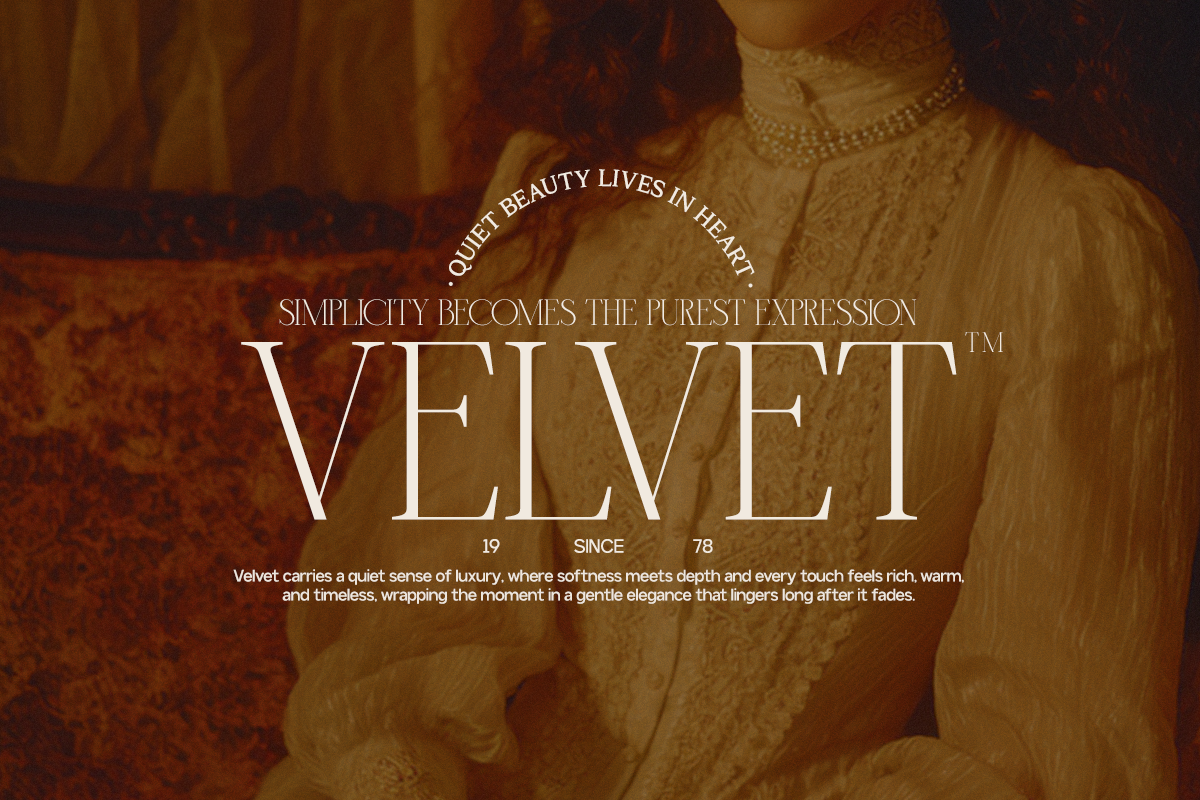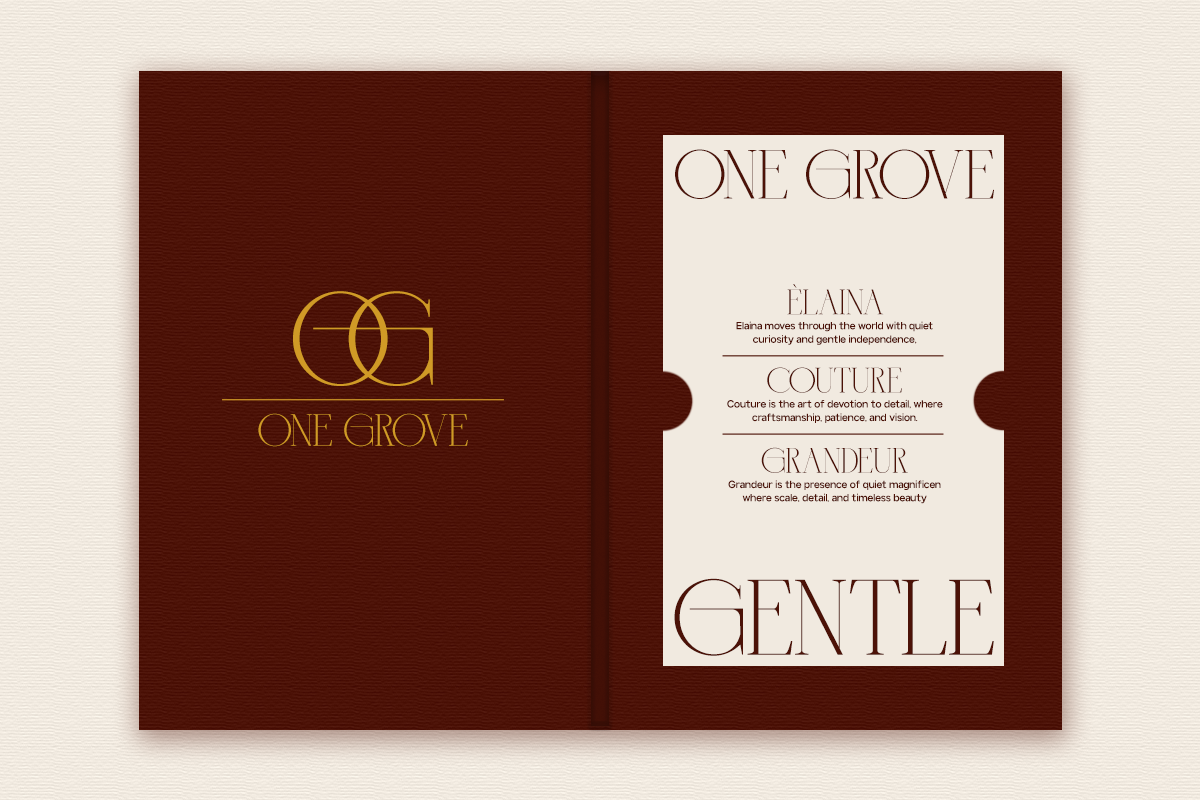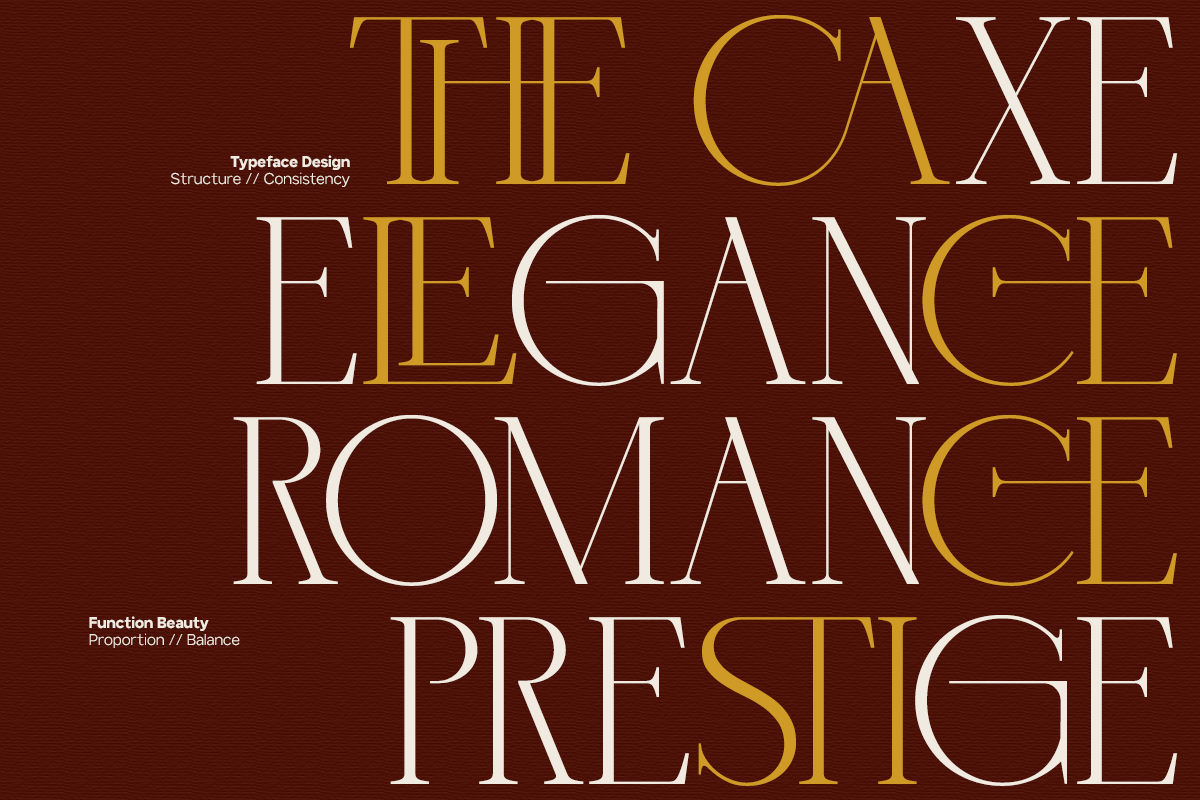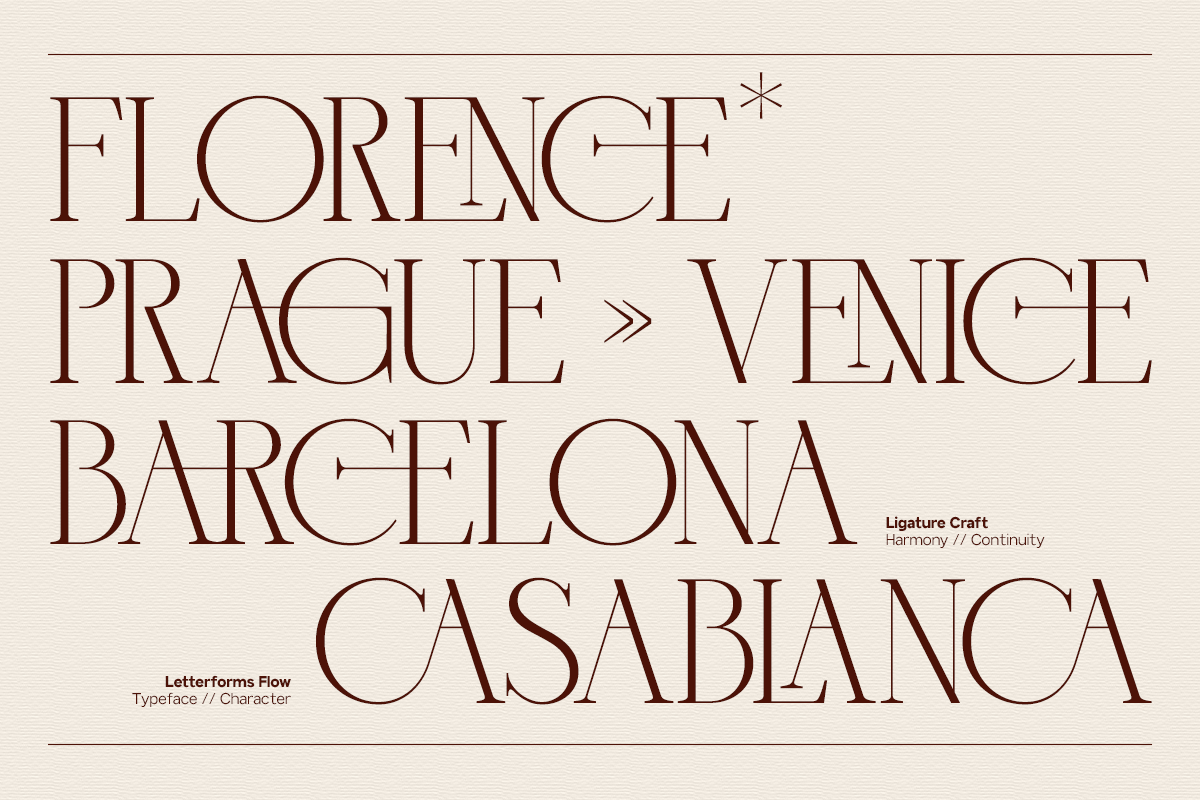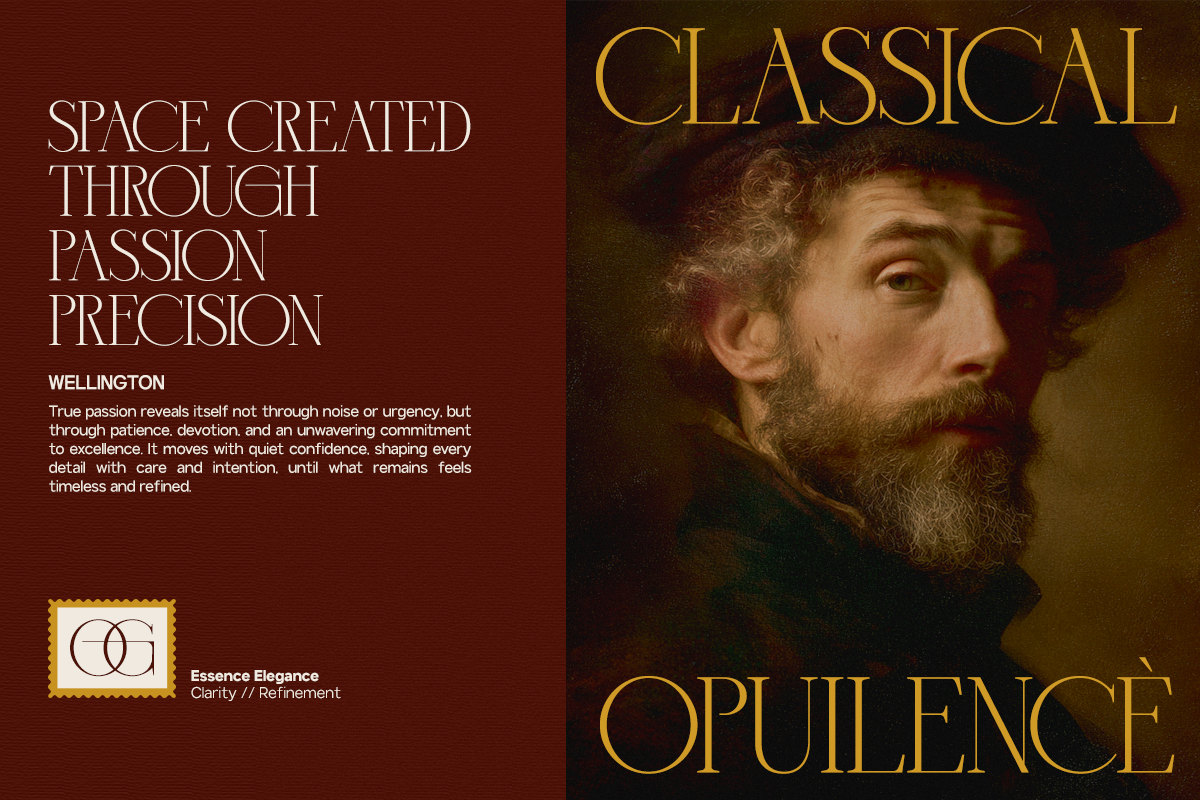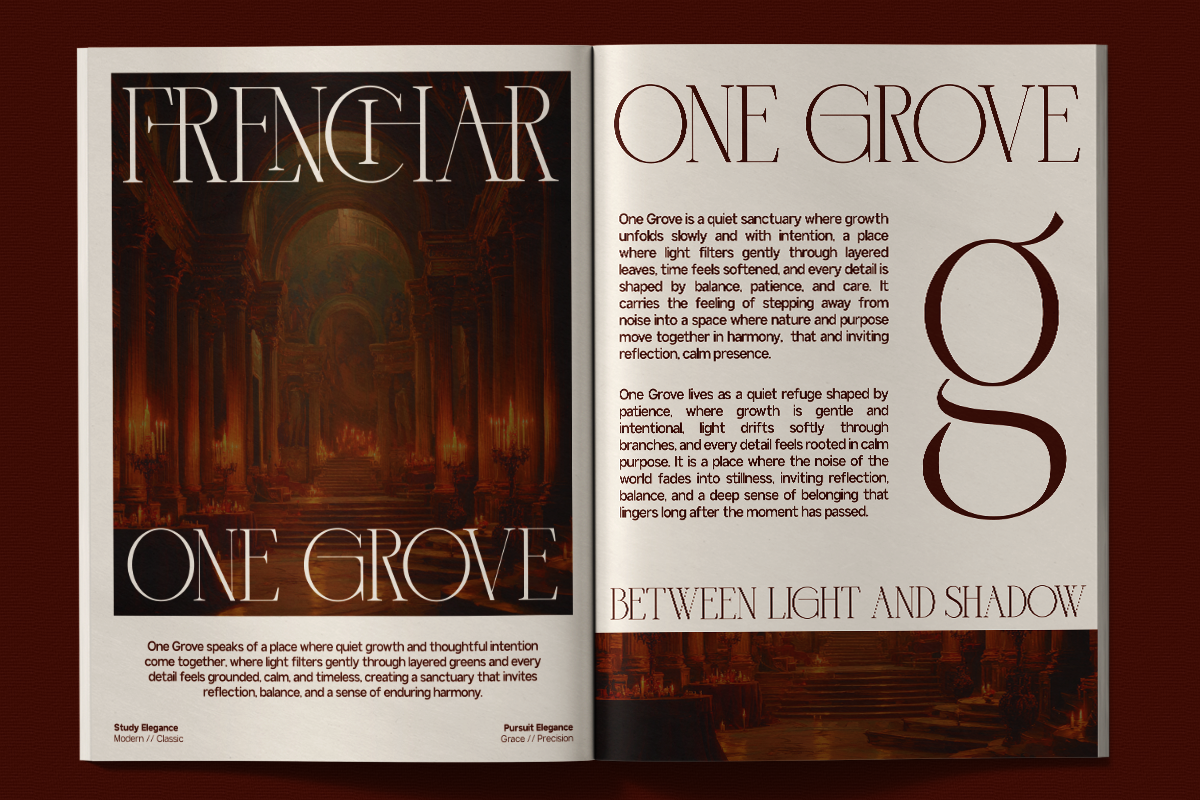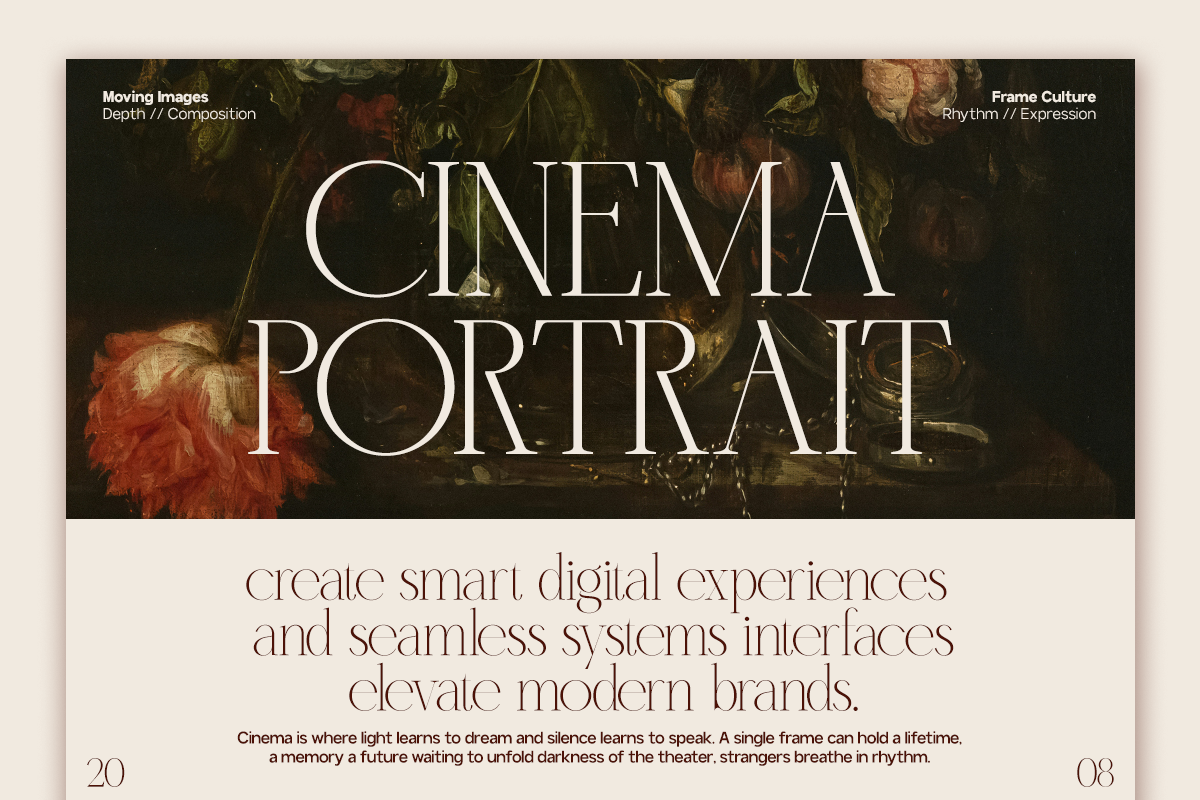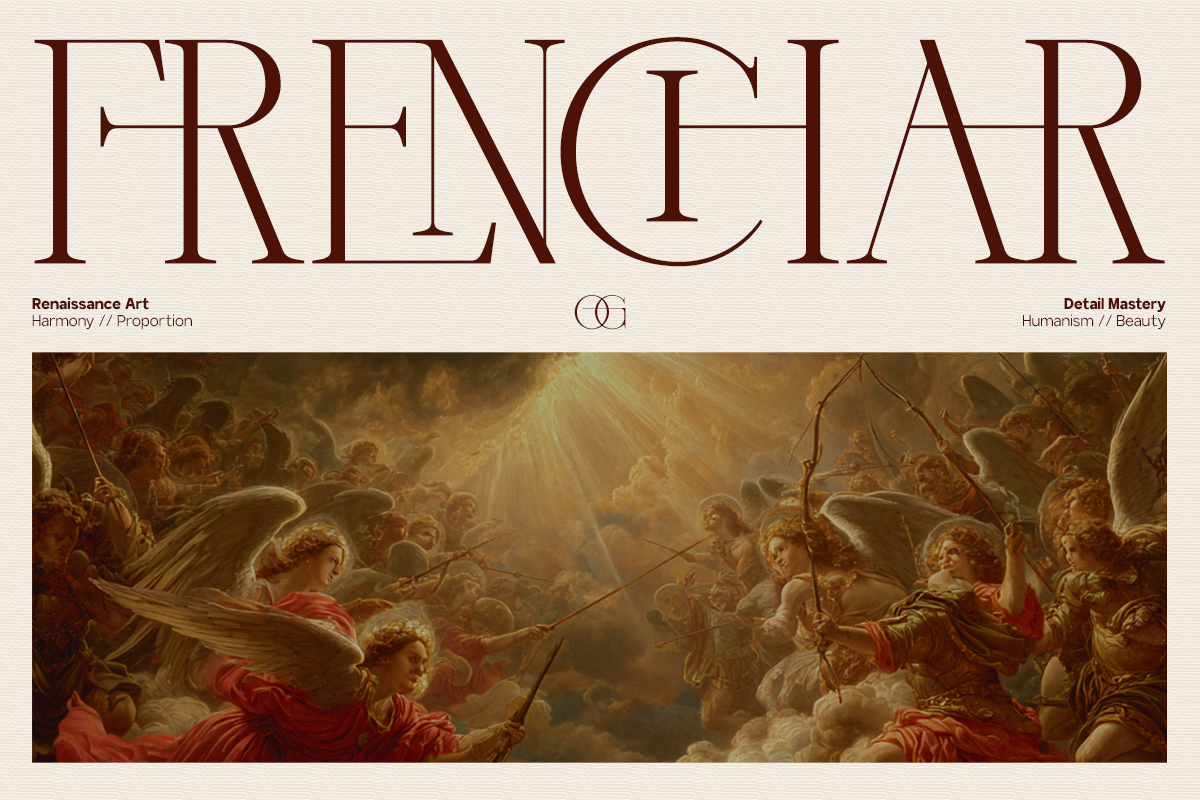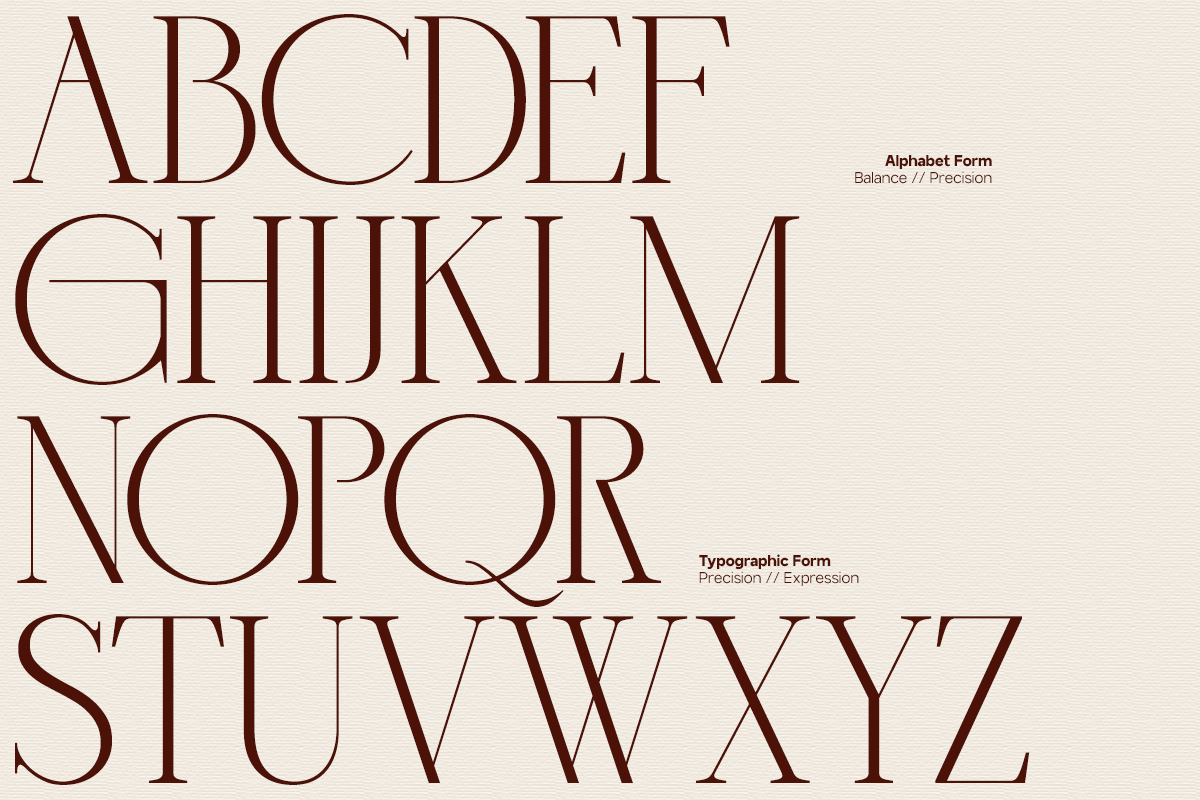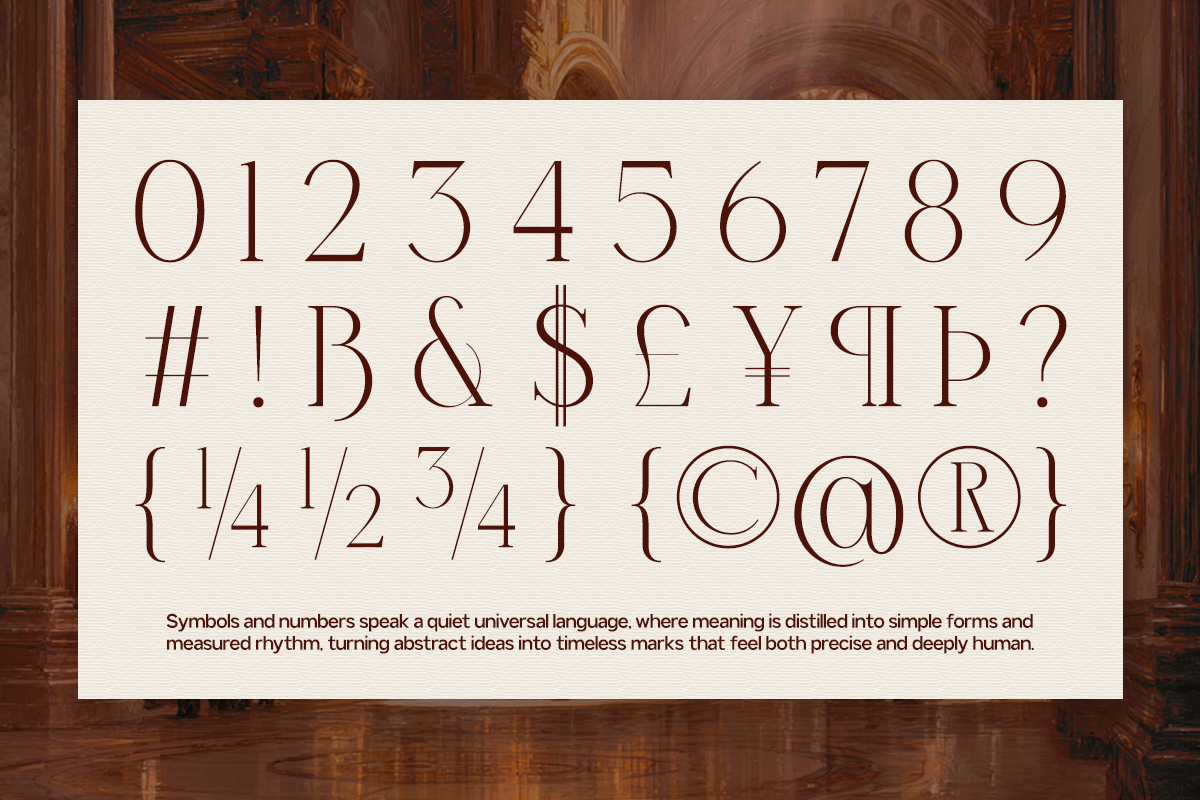
GC Trench Vogue - Chic Elegant Serif
GC Trench Vogue – Chic Elegant Serif is a sophisticated serif typeface designed to capture the essence of modern fashion and timeless elegance. With refined curves, graceful contrast, and carefully balanced proportions, this font delivers a chic and confident voice that elevates any visual composition.
Inspired by high-fashion editorials and luxury branding, GC Trench Vogue is perfect for fashion magazines, beauty packaging, boutique branding, elegant logos, and premium visual identities. Its delicate yet distinctive letterforms create a harmonious blend of modern style and classic sophistication.
Thoughtfully crafted for clarity and versatility, GC Trench Vogue works beautifully across both digital and print media. Whether used for stylish headlines, editorial layouts, or refined branding, this typeface adds a touch of glamour and elegance to every design.
- Chic Elegant Serif Construction
Bring fashion-forward elegance and refined beauty to your typography with GC Trench Vogue – Chic Elegant Serif.